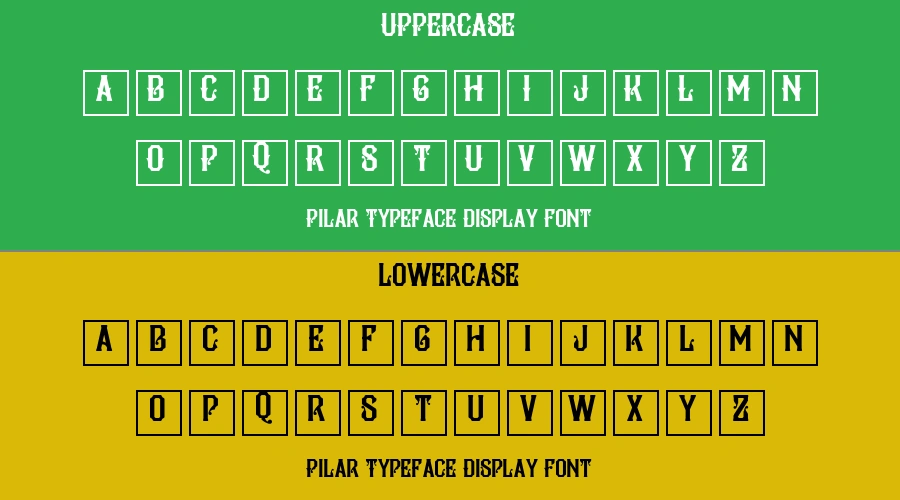
About Pilar Typeface Display Font
Pilar Typeface Display Font embodies typographic excellence through its masterful combination of contextual forms and emotional resonance. Created for presentation decks, this typeface delivers exceptional distinctiveness and professional finish across all applications. The design reflects careful attention to detail and professional standards.
Advanced capabilities include distinctive geometric precision and versatile expert sets, giving designers creative control. When used in compliance materials, Pilar Typeface Display Font exhibits remarkable body text reading. The harmonious balance between letterfit and regulatory compliance sets this typeface apart.